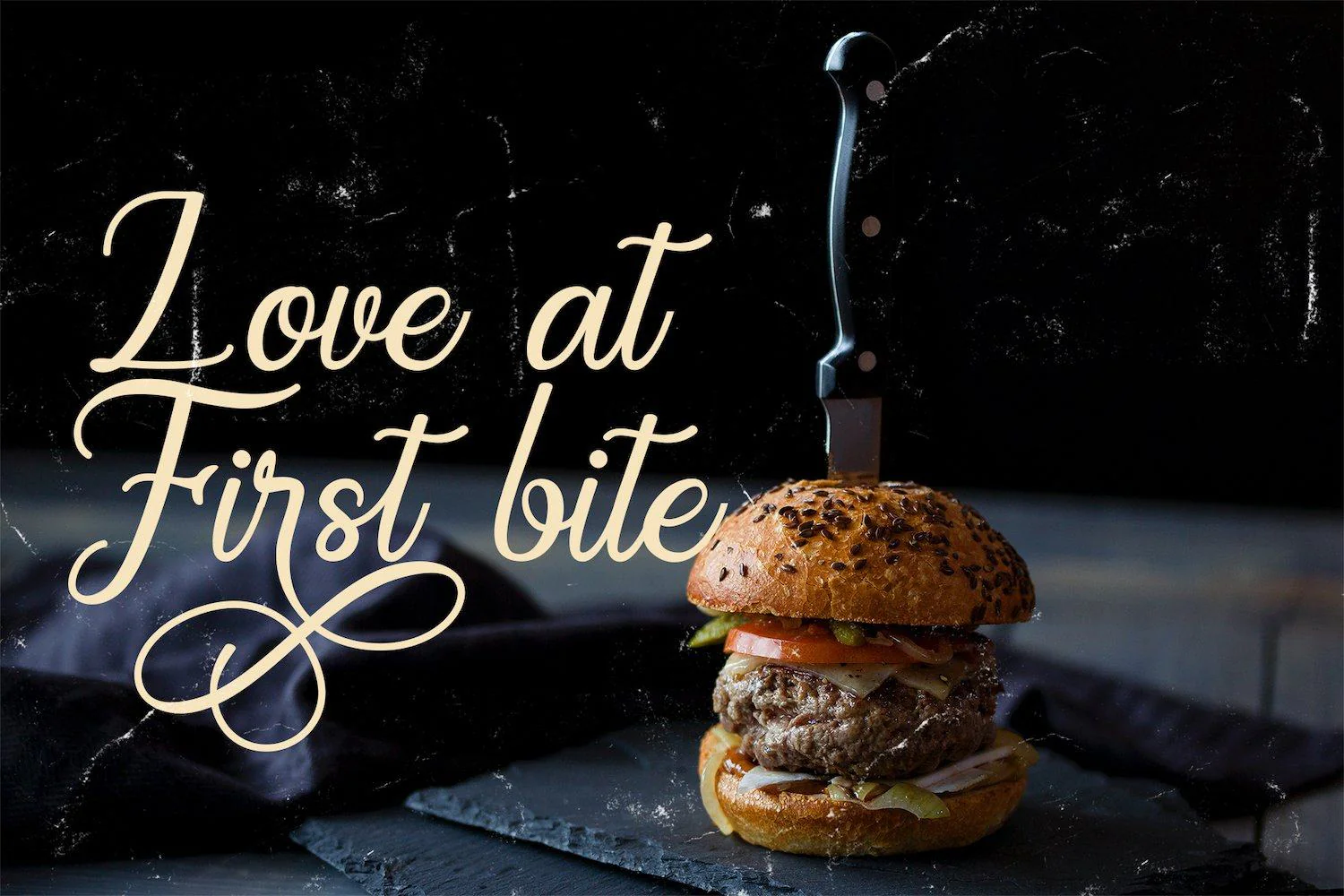
Introducing Regalhisa - Calligraphy Script Font
Regalhisa is a script Font with modern beautiful calligraphy Style. Whether you’re looking for fonts for calligraphy scripts for DIY projects, Styll Love will turn any creative idea into a true piece of art! This font is PUA encoded which means you can access all of the cute glyphs with ease! It also features a wealth of special features including stylistic alternate glyphs and ligatures.